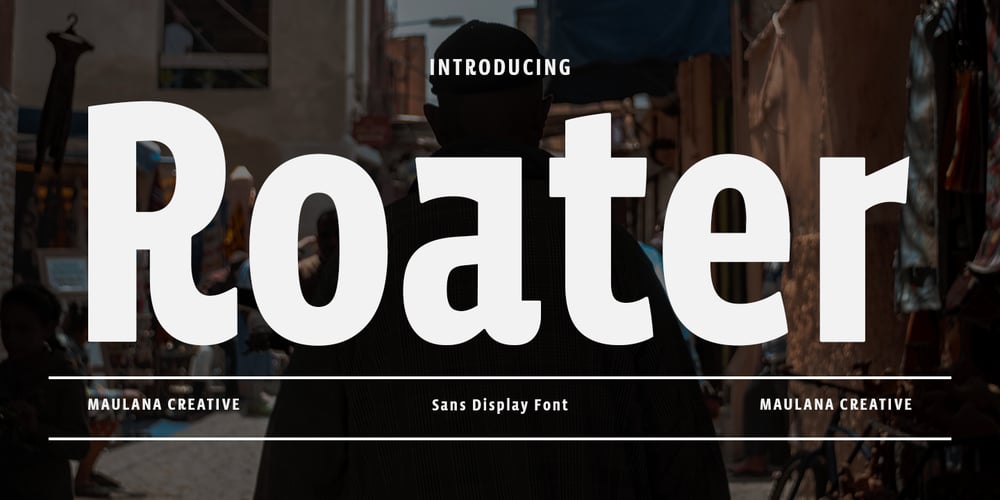
MC Roater Font Family was designed by Gilang Maulana and published by Maulana Creative. MC Roater contains 1 styles and family package options. Roater is a Condensed Decorative Display Sans font. Regular stroke, fun character with a bit of ligatures and alternates. To give you an extra creative work. Roater font support multilingual more than 100+ language. This font is good for logo design, Social media, Movie Titles, Books Titles, a short text even a long text letter and good for your secondary text font with script or serif. Make a stunning work with Roater font. Cheers, Maulana Creative